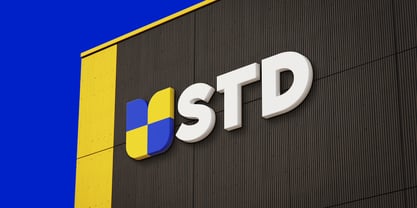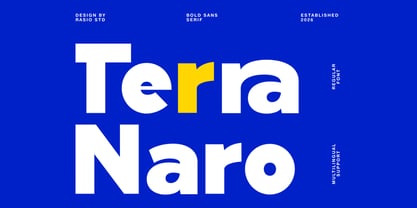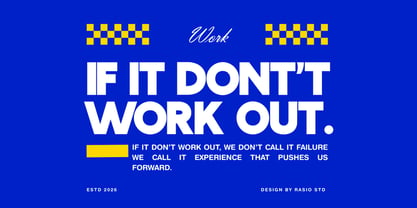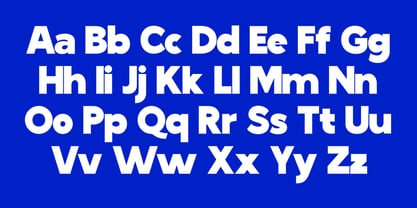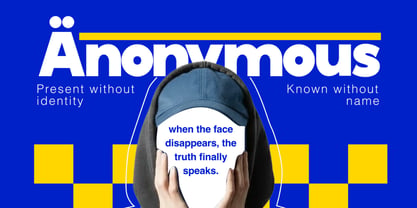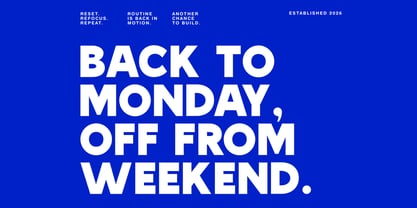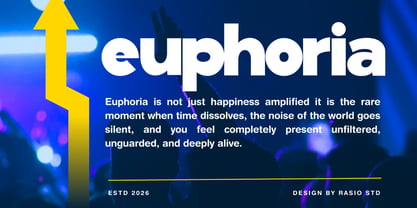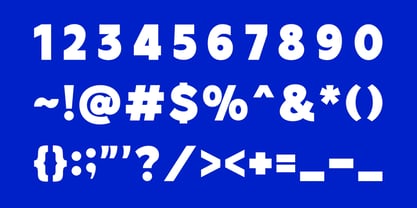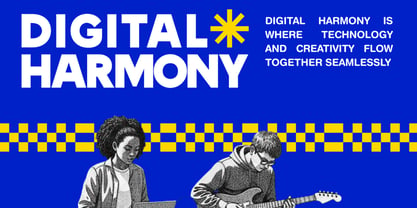
Terra Naro
von Rasio Studio
Die Schriftfamilie Terra Naro wurde von Fajar Indra entworfen und von Rasio Studio veröffentlicht. Terra Naro enthält 1 Stile. Mehr über diese Familie
Terra Naro is a bold sans serif font designed to deliver high-impact typography for modern applications. Created by Rasio Studio, this typeface features strong geometric shapes, clean lines, and sharp contrast, making it perfect for headlines, branding, posters, and digital interfaces. With full uppercase and lowercase alphabets, multilingual support. Terra Naro is perfect for modern branding, corporate identities, packaging, web design, digital ads, and editorial layouts. Its bold yet minimal construction makes it highly legible at large sizes and ideal for titles, banners, posters, and UI/UX headings. Its multilingual support also ensures global reach across various creative projects.
Designer: Fajar Indra
Foundry: Rasio Studio